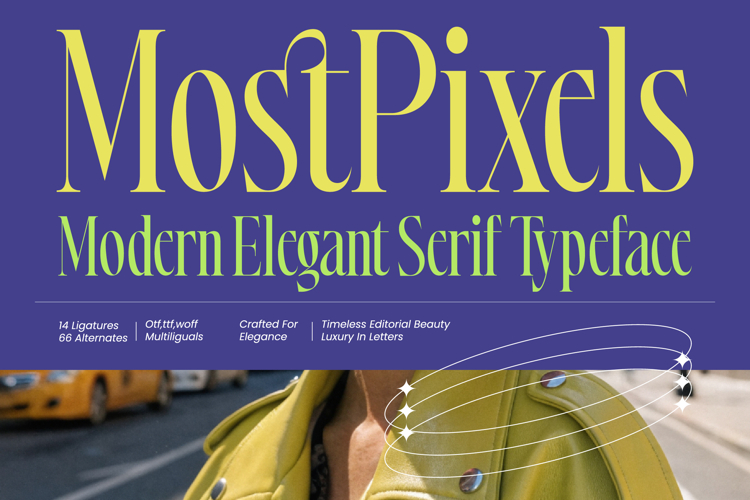
Most Pixels Modern Elegant Serif
Most Pixels is a sophisticated masterpiece that defines contemporary luxury with every stroke and curve. It is the perfect choice for designers seeking to elevate their visual narrative through refined, high-fashion typography.
Inspired by the timeless elegance of classic editorial layouts, this typeface merges the precision of modern geometry with the fluid grace of organic curves. Its atmosphere evokes the high-energy world of metropolitan fashion shows and the quiet luxury of curated art gallery catalogs.
This modern serif display is engineered for maximum branding impact, offering a sharp, high-contrast serif profile that commands attention instantly. It embodies luxury typography through its slender proportions and serves as a premier editorial font for those who refuse to settle for the ordinary.